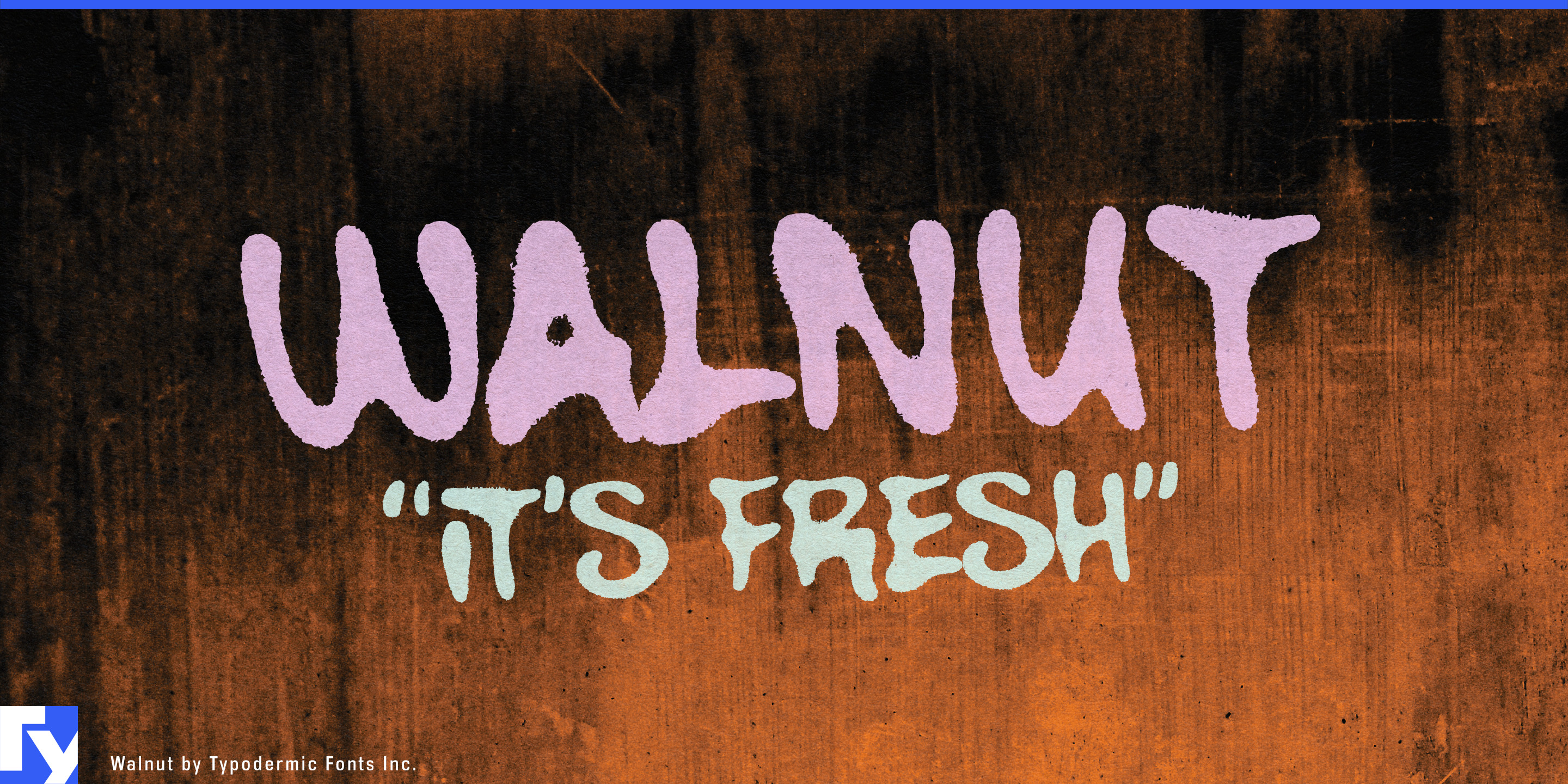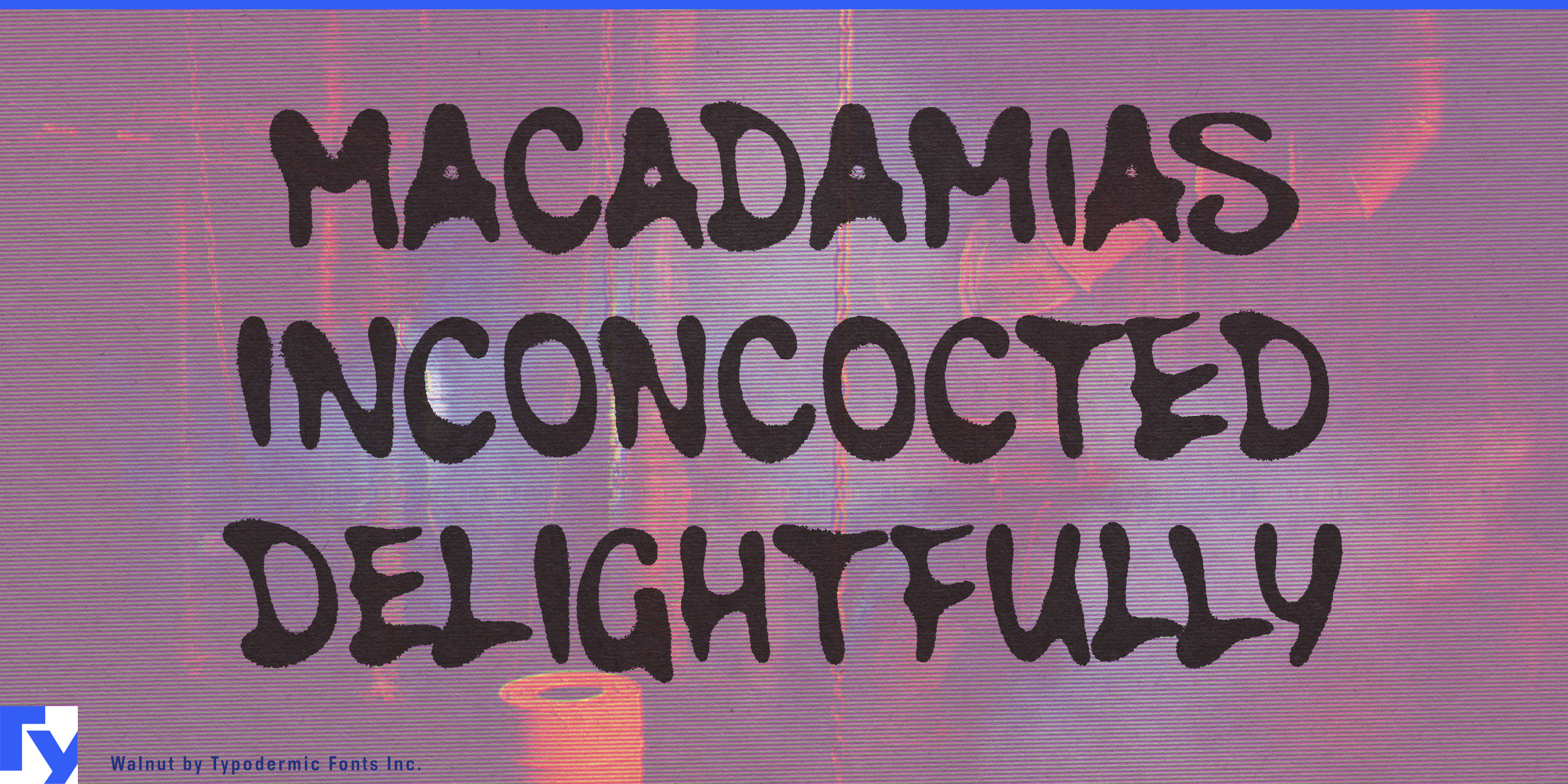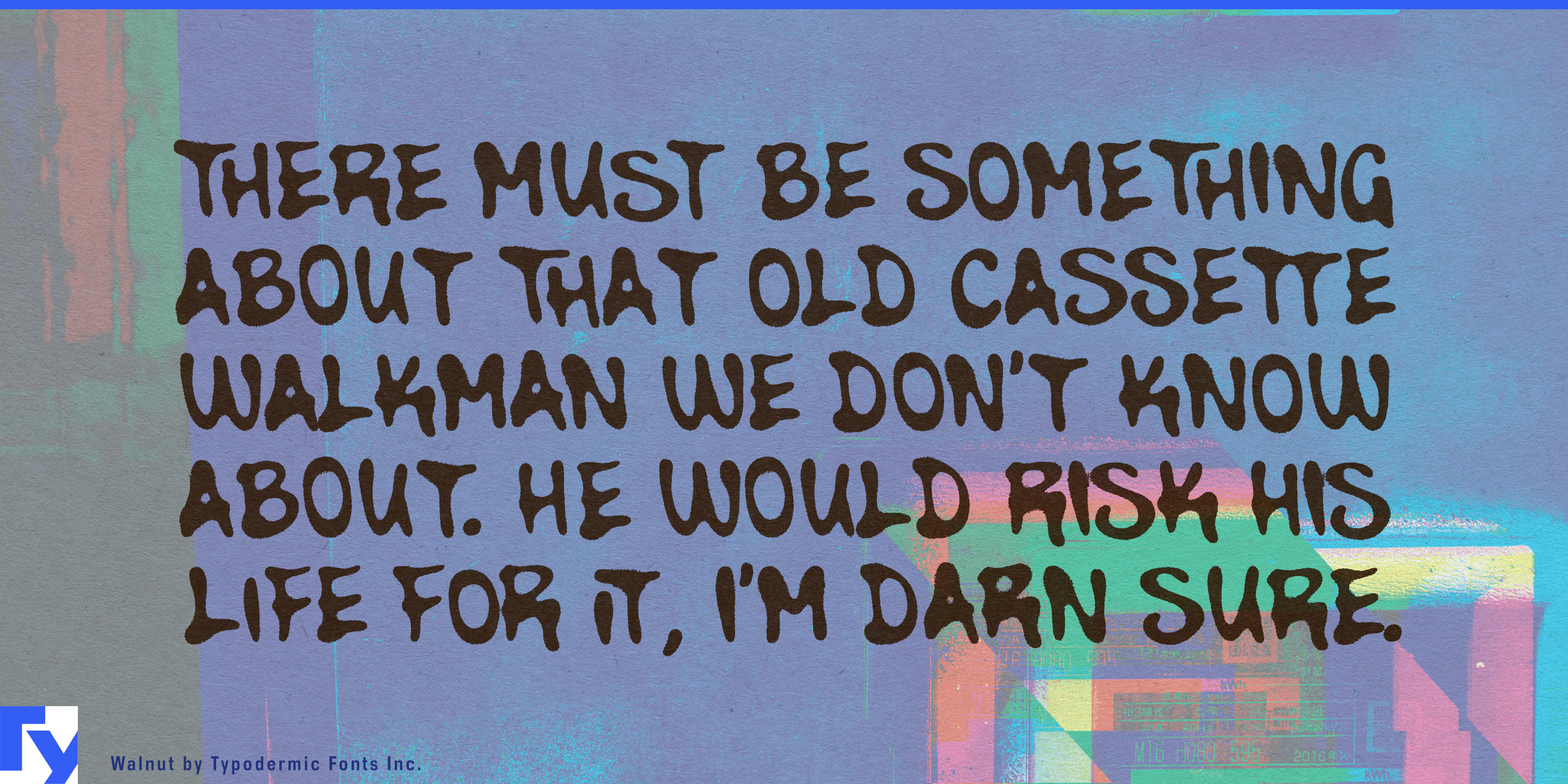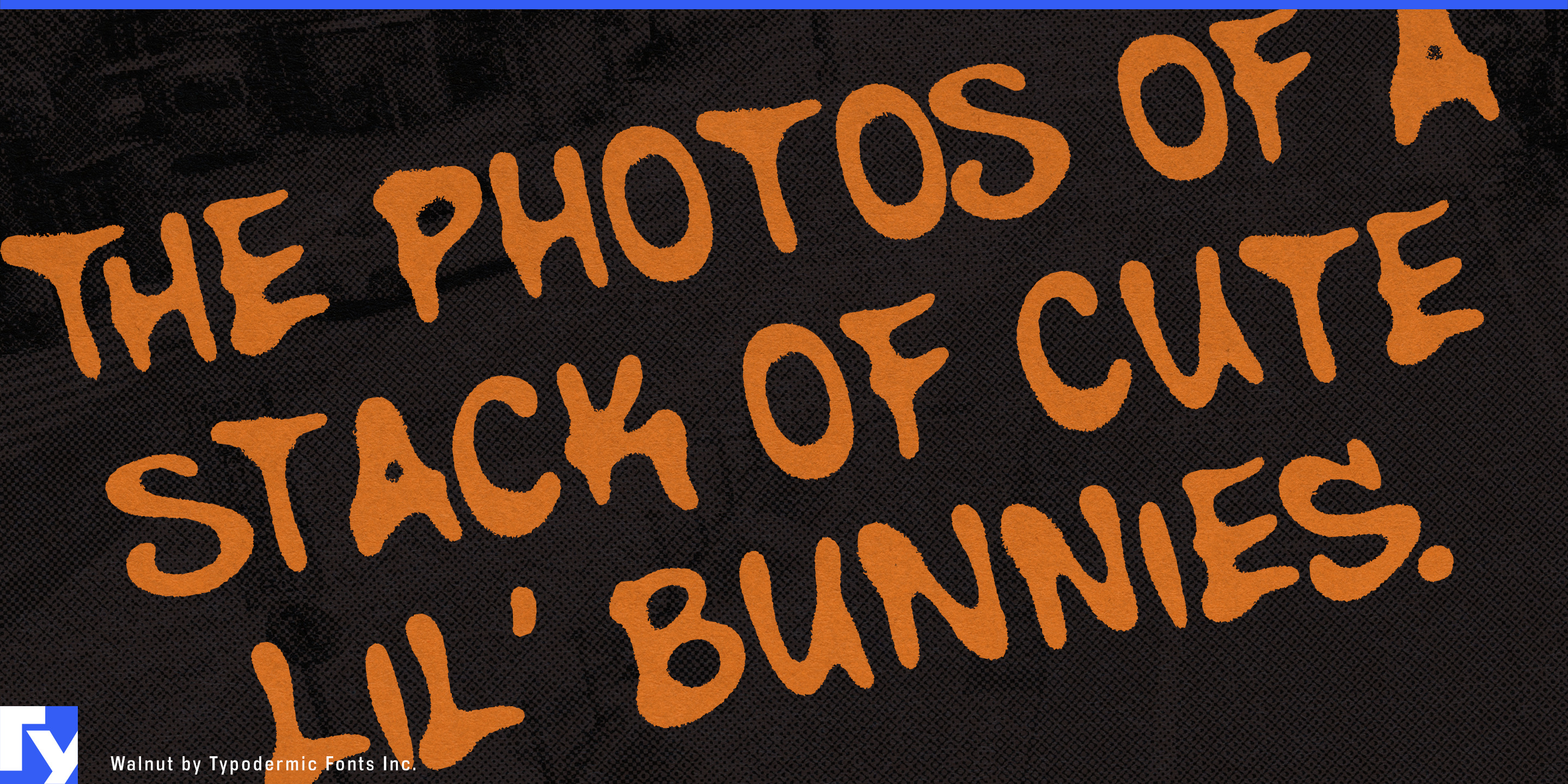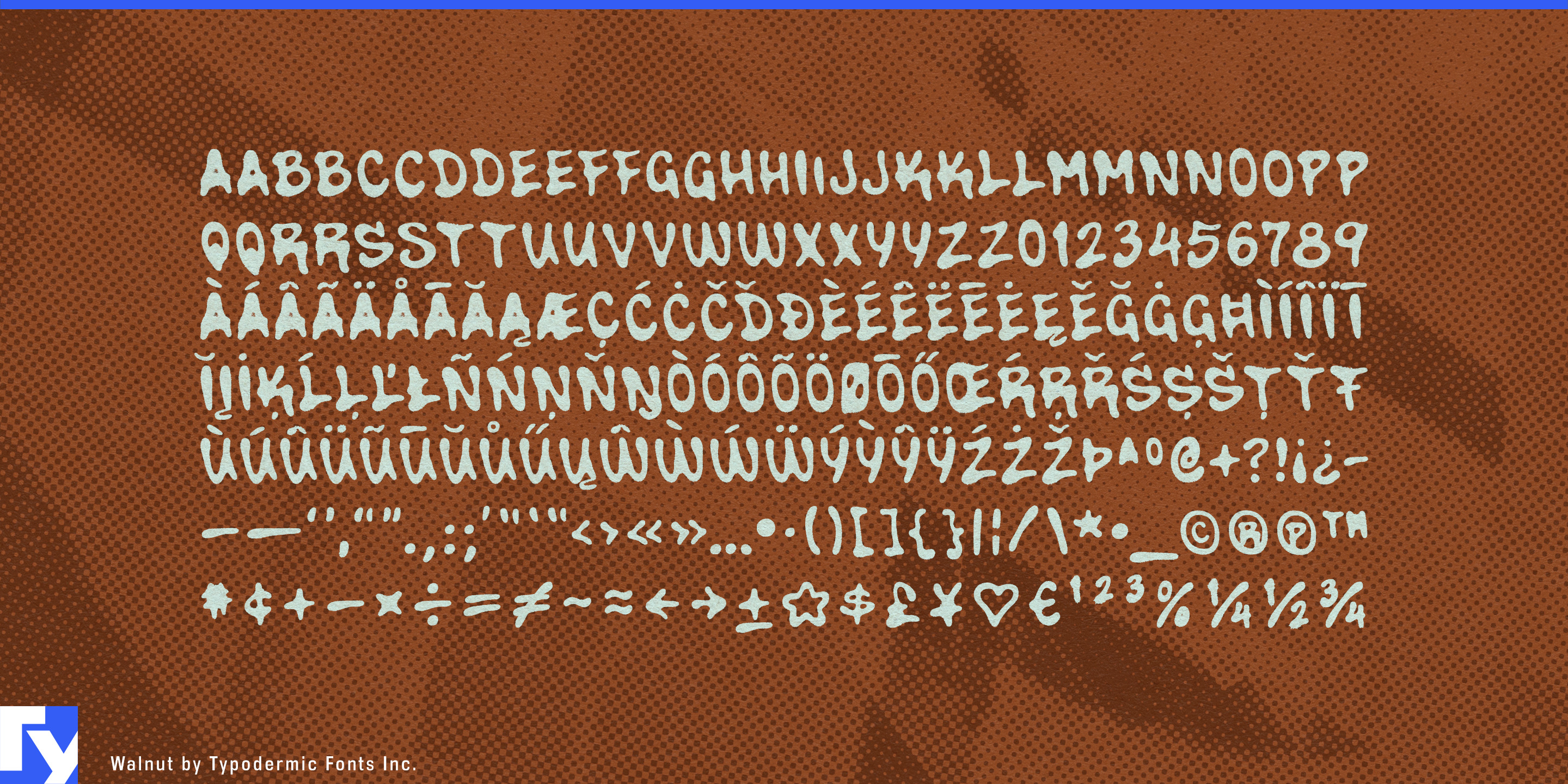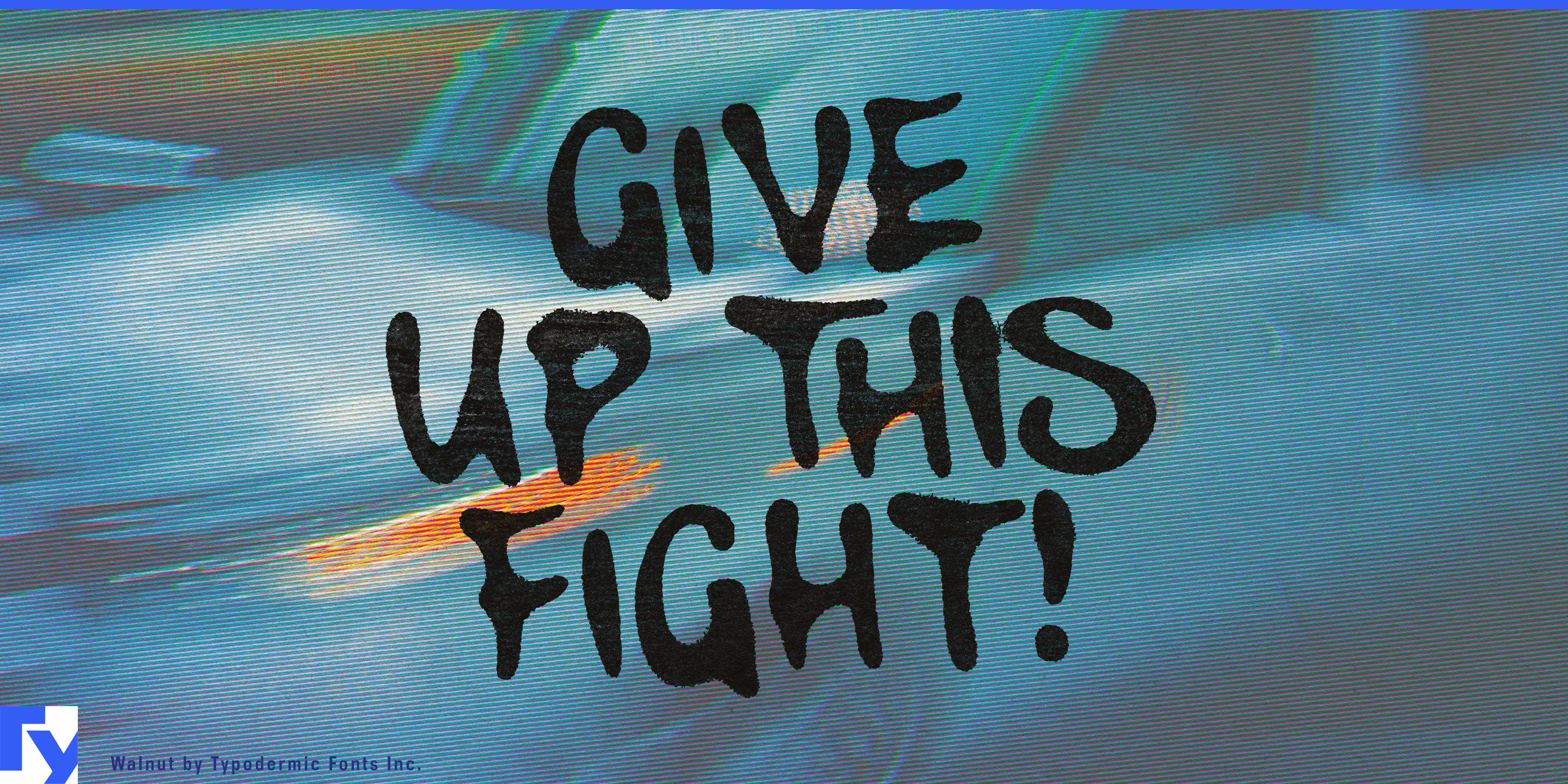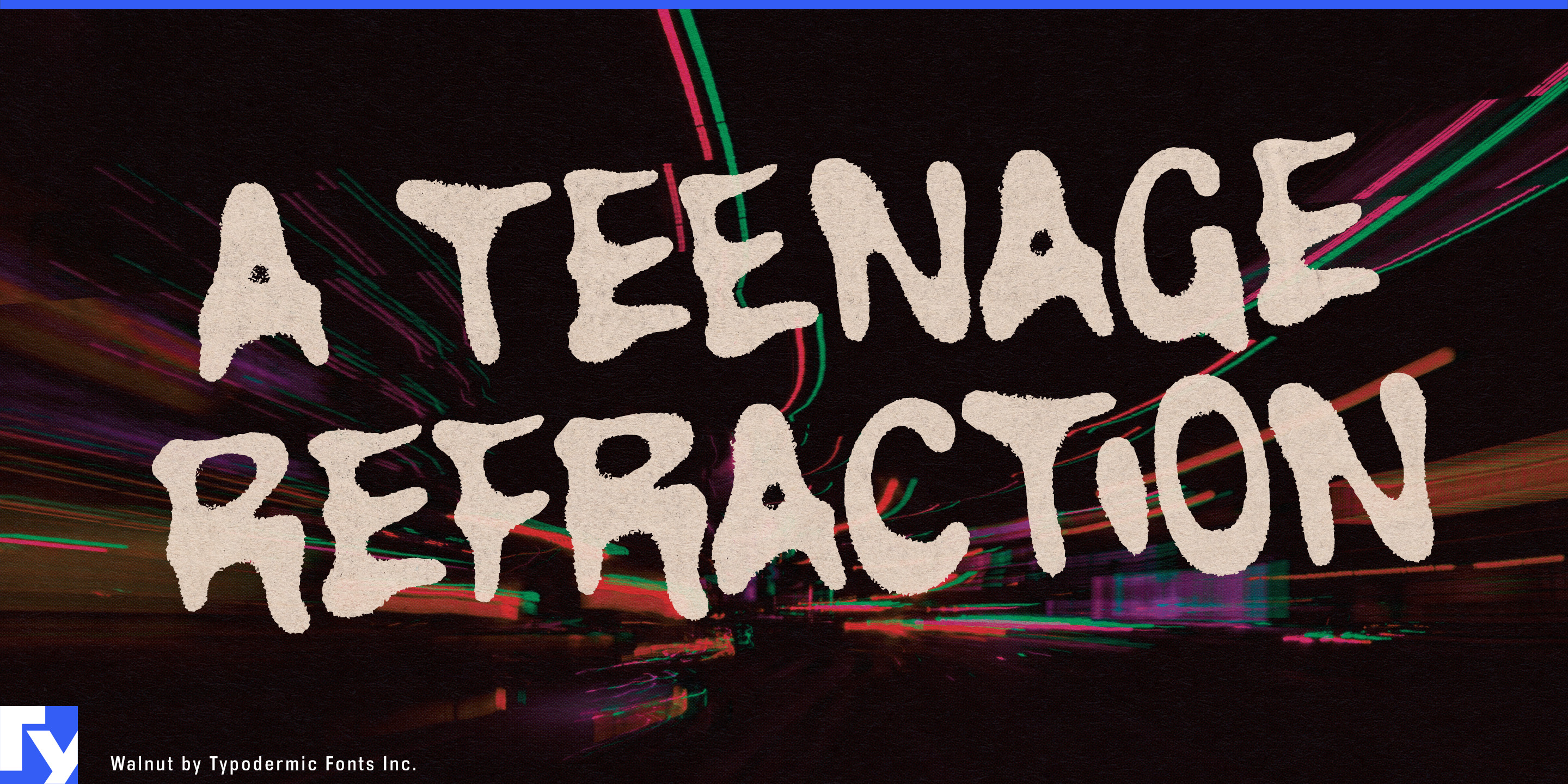
Walnut is a realistic graffiti font that looks like it just sprang off the wall. The gritty spray-painted look is accentuated with unique combos that will appear in any application that supports OpenType ligatures. Most Latin-based European writing systems are supported, including the following languages. Afaan Oromo, Afar, Afrikaans, Albanian, Alsatian, Aromanian, Aymara, Bashkir (Latin), Basque, Belarusian (Latin), Bemba, Bikol, Bosnian, Breton, Cape Verdean, Creole, Catalan, Cebuano, Chamorro, Chavacano, Chichewa, Crimean Tatar (Latin), Croatian, Czech, Danish, Dawan, Dholuo, Dutch, English, Estonian, Faroese, Fijian, Filipino, Finnish, French, Frisian, Friulian, Gagauz (Latin), Galician, Ganda, Genoese, German, Greenlandic, Guadeloupean Creole, Haitian Creole, Hawaiian, Hiligaynon, Hungarian, Icelandic, Ilocano, Indonesian, Irish, Italian, Jamaican, Kaqchikel, Karakalpak (Latin), Kashubian, Kikongo, Kinyarwanda, Kirundi, Kurdish (Latin), Latvian, Lithuanian, Lombard, Low Saxon, Luxembourgish, Maasai, Makhuwa, Malay, Maltese, Māori, Moldovan, Montenegrin, Ndebele, Neapolitan, Norwegian, Novial, Occitan, Ossetian (Latin), Papiamento, Piedmontese, Polish, Portuguese, Quechua, Rarotongan, Romanian, Romansh, Sami, Sango, Saramaccan, Sardinian, Scottish Gaelic, Serbian (Latin), Shona, Sicilian, Silesian, Slovak, Slovenian, Somali, Sorbian, Sotho, Spanish, Swahili, Swazi, Swedish, Tagalog, Tahitian, Tetum, Tongan, Tshiluba, Tsonga, Tswana, Tumbuka, Turkish, Turkmen (Latin), Tuvaluan, Uzbek (Latin), Venetian, Vepsian, Võro, Walloon, Waray-Waray, Wayuu, Welsh, Wolof, Xhosa, Yapese, Zapotec Zulu and Zuni.